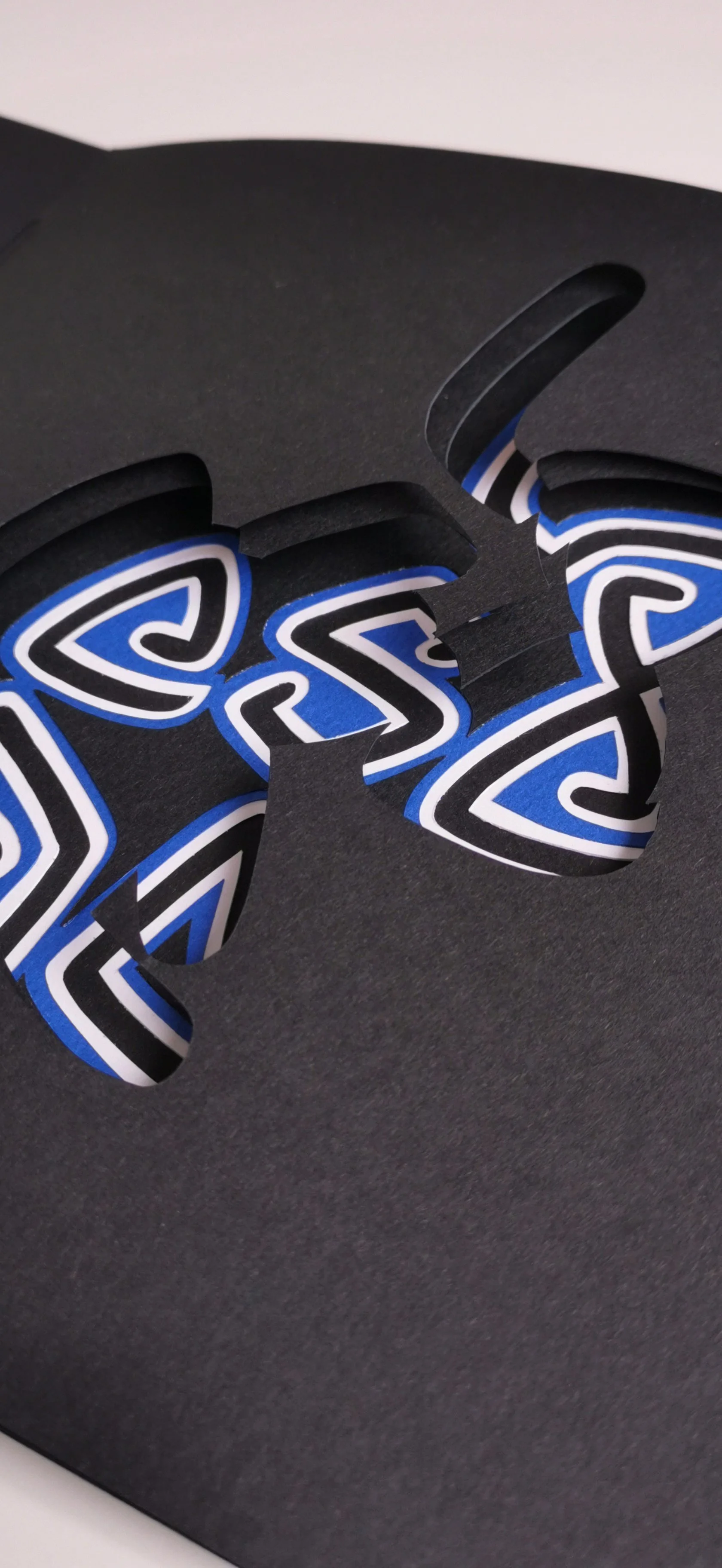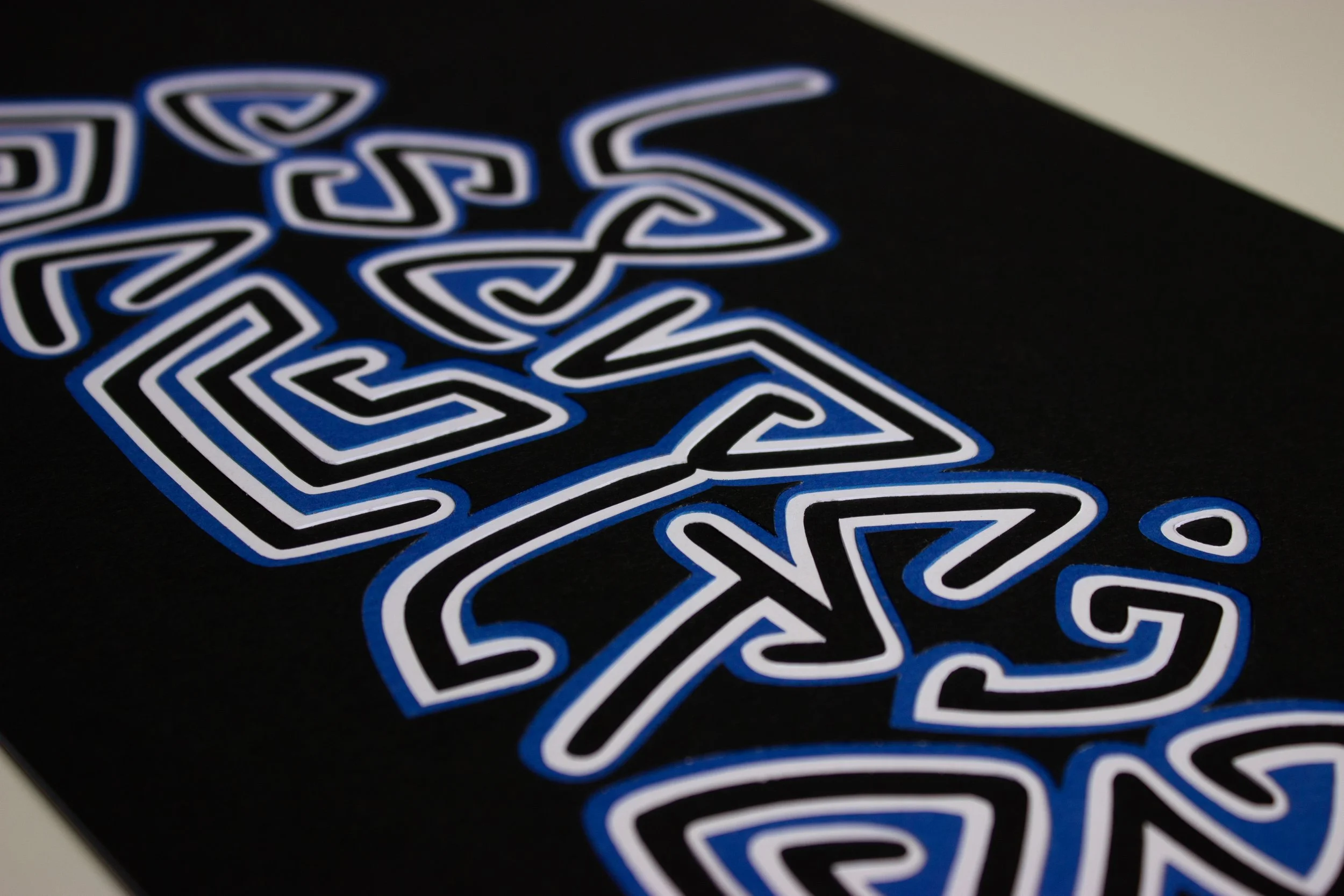
ANA SANABRIA | La esencia oculta (The Hidden Essence)
ARTIST | Ana Sanabria
BASED IN | Medellín, Colombia
TITLE | La esencia oculta (The Hidden Essence)
MEDIUM | Textured paper
This unique artist’s book is inspired by the traditional molas woven by Indigenous Guna women, where layered shapes function as a visual language. The work honours cultural memory, craftsmanship, and the hidden stories embedded within textile traditions.
About the Artist
An artist based in Medellin, Colombia
Ana Sanabria
Ana Sanabria is a freelance lettering artist based in Medellín, Colombia. In 2017, she made a life-changing decision to pursue lettering more seriously, beginning formal training under the mentorship of Lieve Cornil. Her passion lies in making writing visible beyond the words themselves—treating letters as visual forms with expressive potential. Working across paper, digital media, and wood, Ana explores a wide range of letter-based practices, from handwriting, logo design, and branding to carving decorative wood pieces. For her, each project is an opportunity to bring words to life through craft, materials, and experimentation